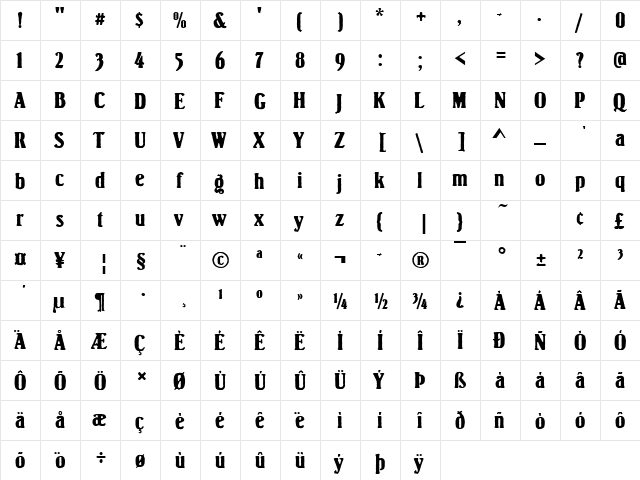
Springfield Becker Antique Regular
Design Context for Springfield Becker Antique Typeface
Springfield Becker Antique has the warm character of retro typography — evoking diners, record sleeves, and the golden age of print advertising.
Ideal for diner signage, record shop branding, 70s/80s-themed projects, and heritage product labels.
Font Pairing: Combine Springfield Becker Antique with a simple slab or neutral sans — period-accurate companions reinforce the vintage feel without competing for attention.
Pro Tip: Lean into Springfield Becker Antique's period character by pairing it with aged paper textures, muted colour palettes, and vintage illustration styles.